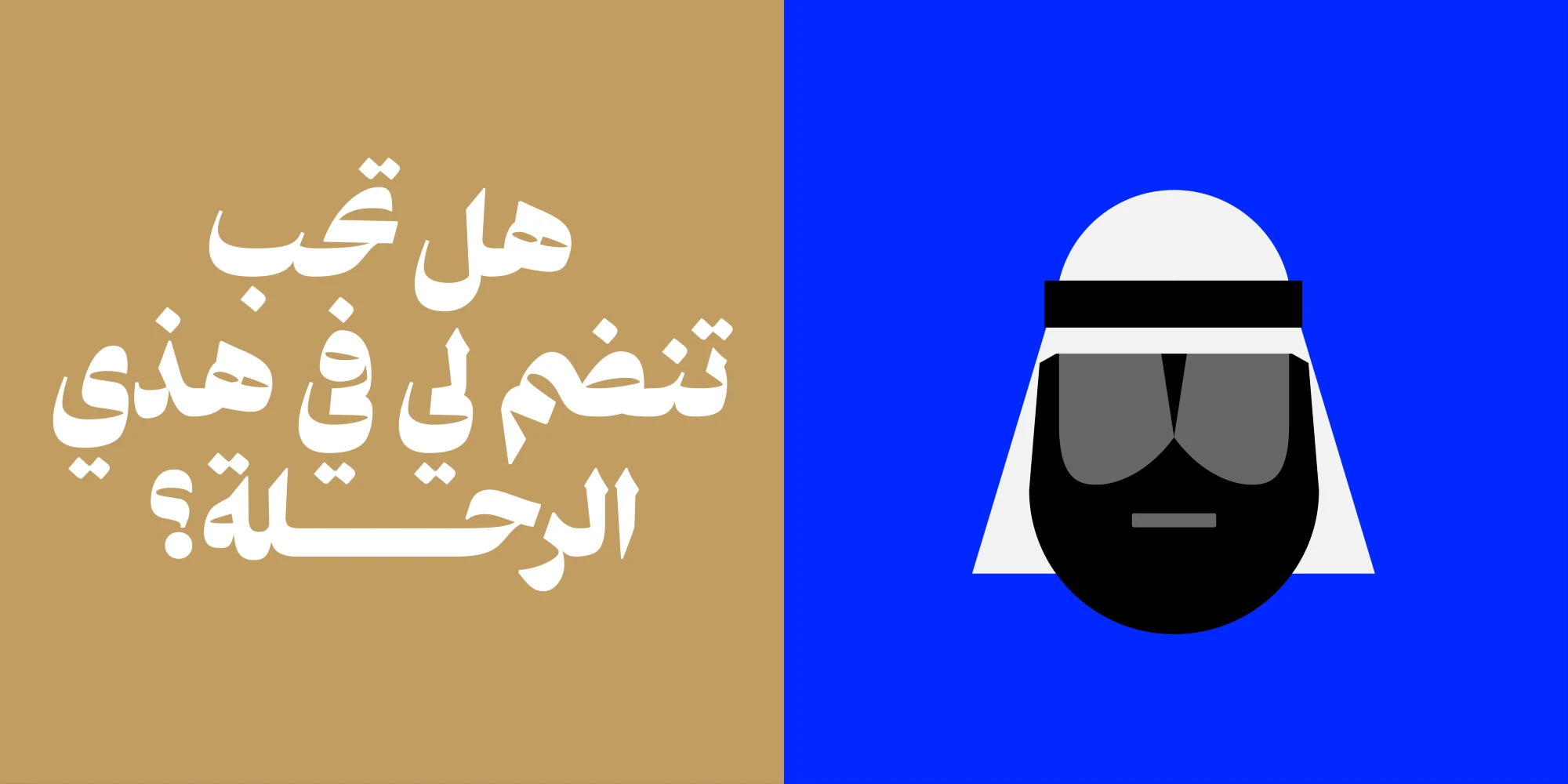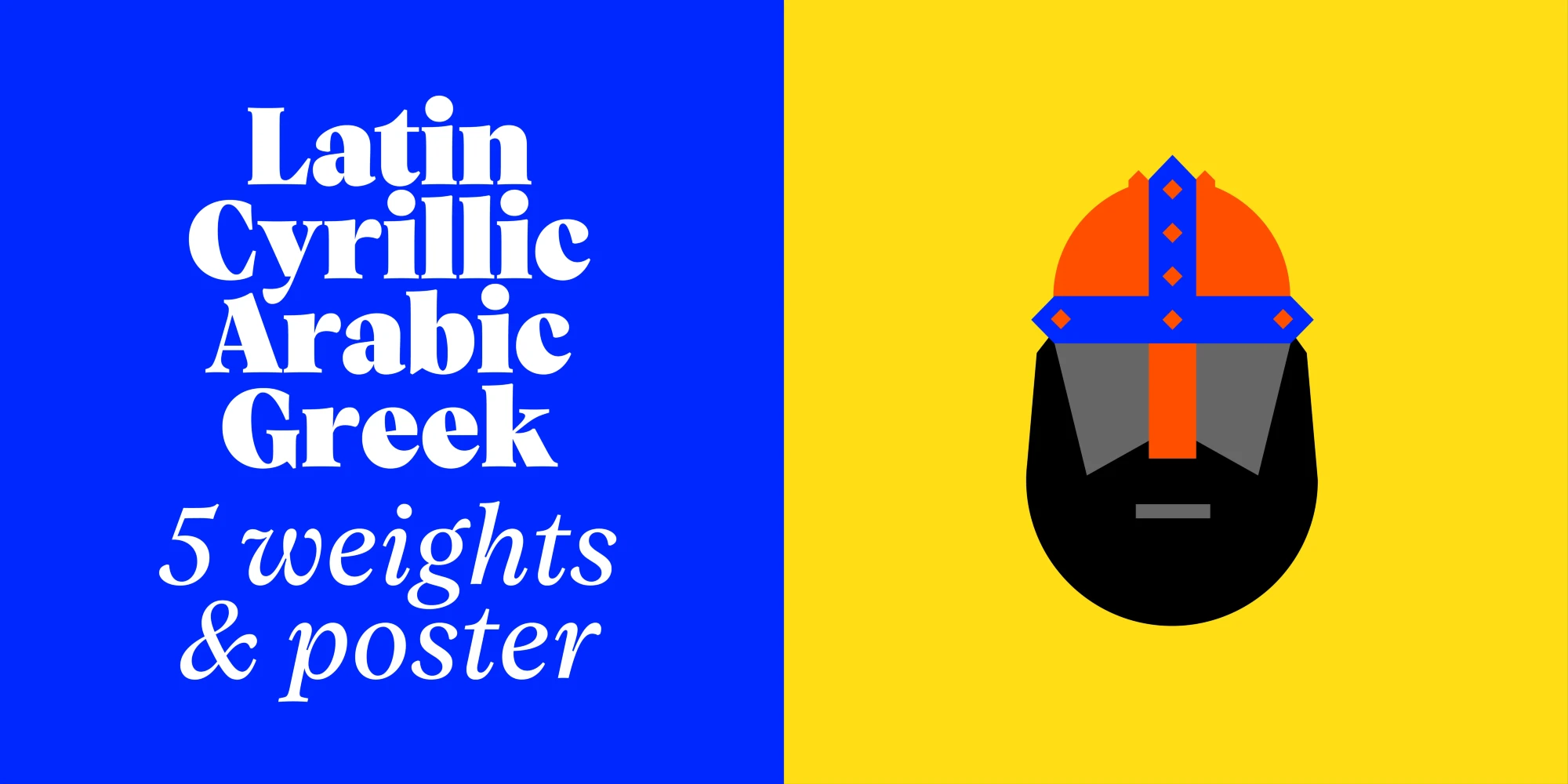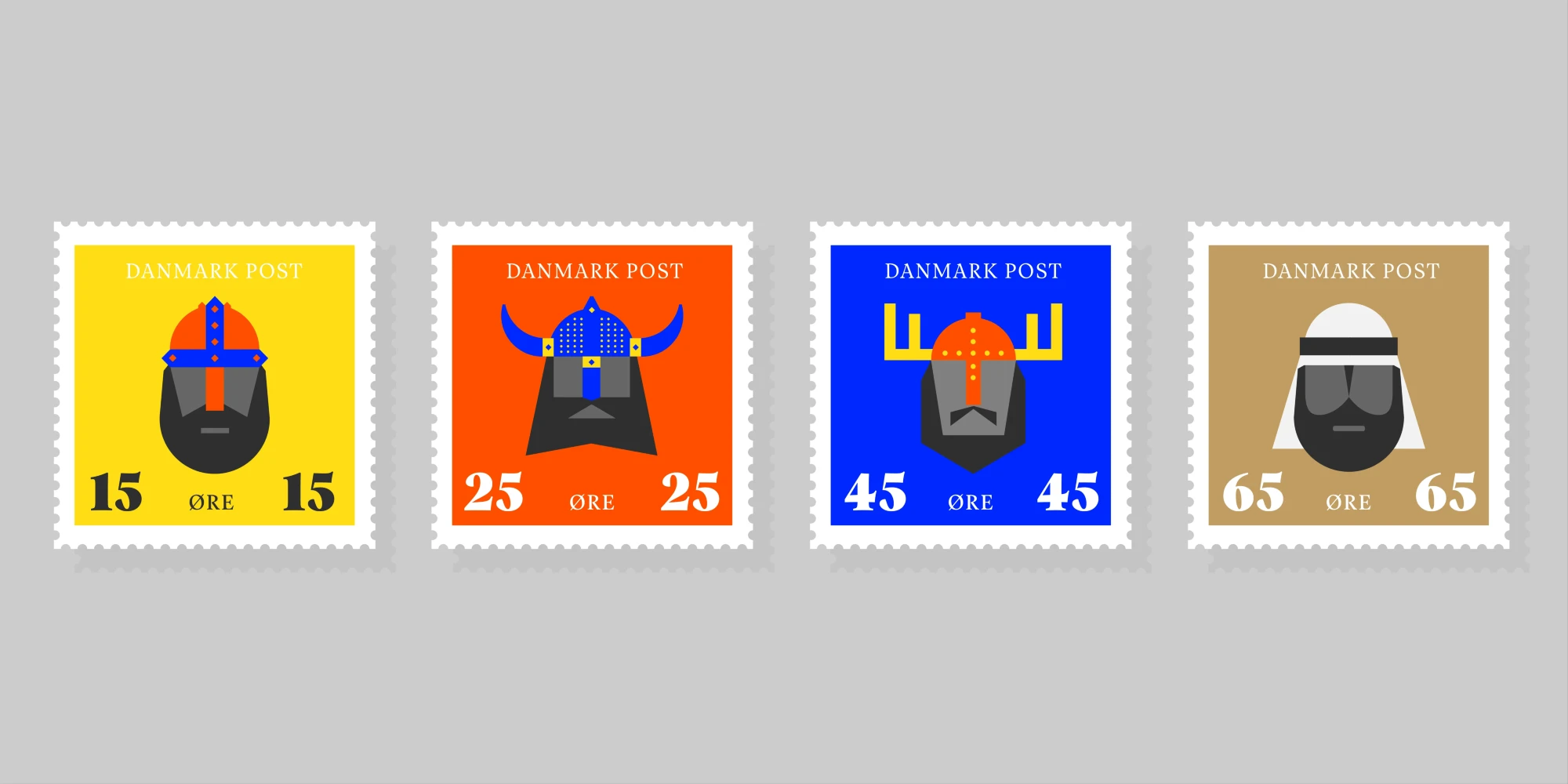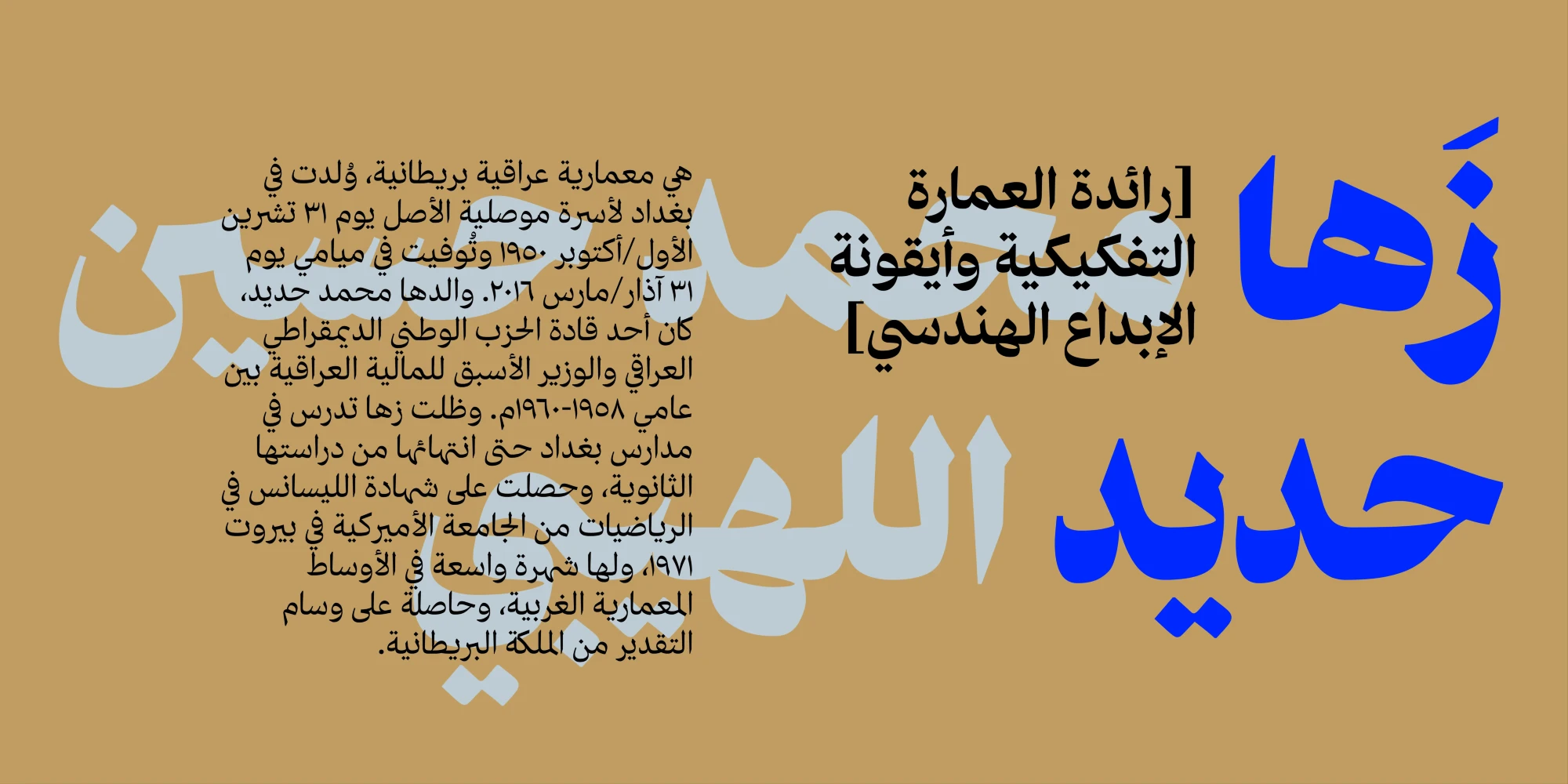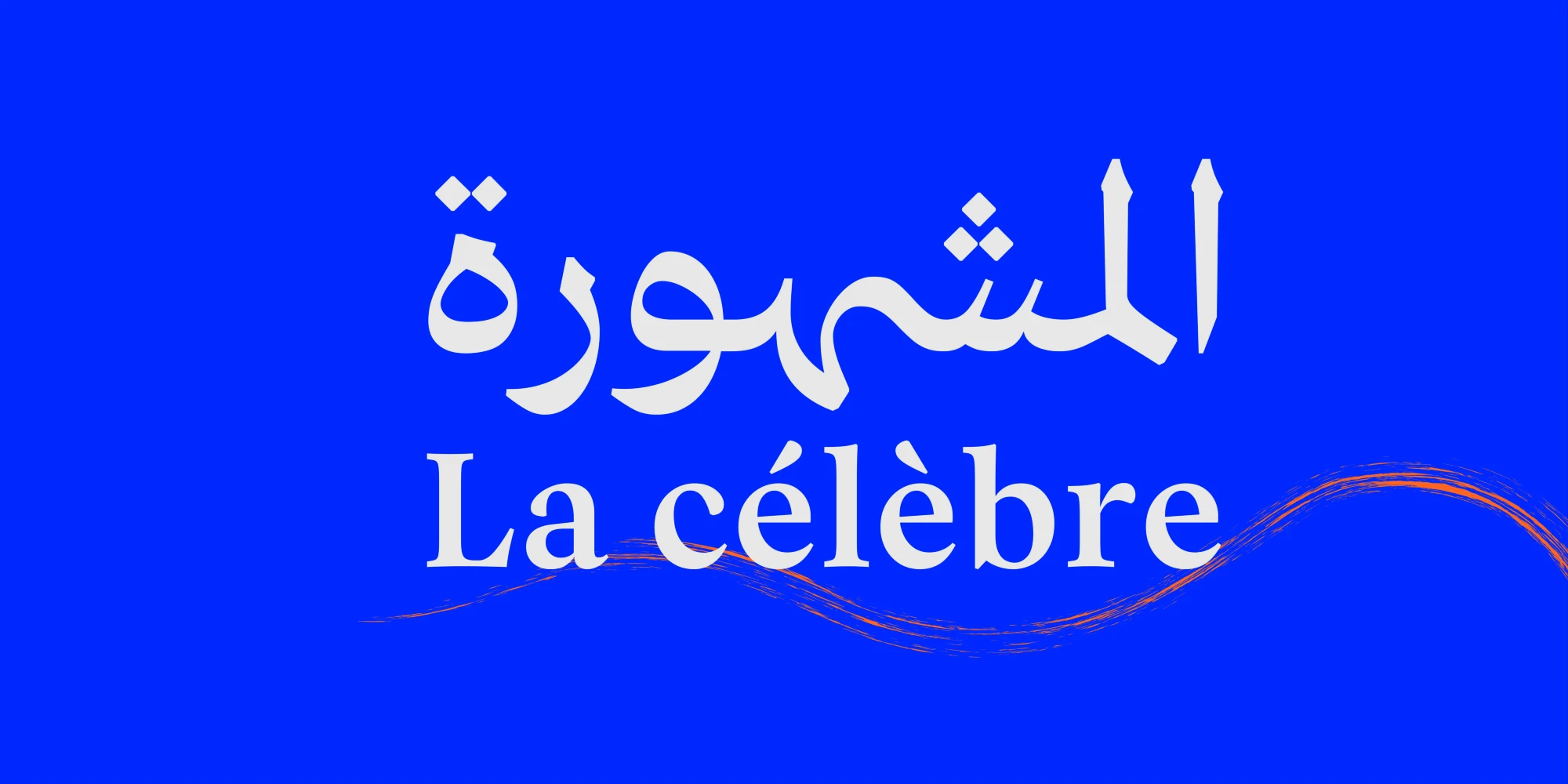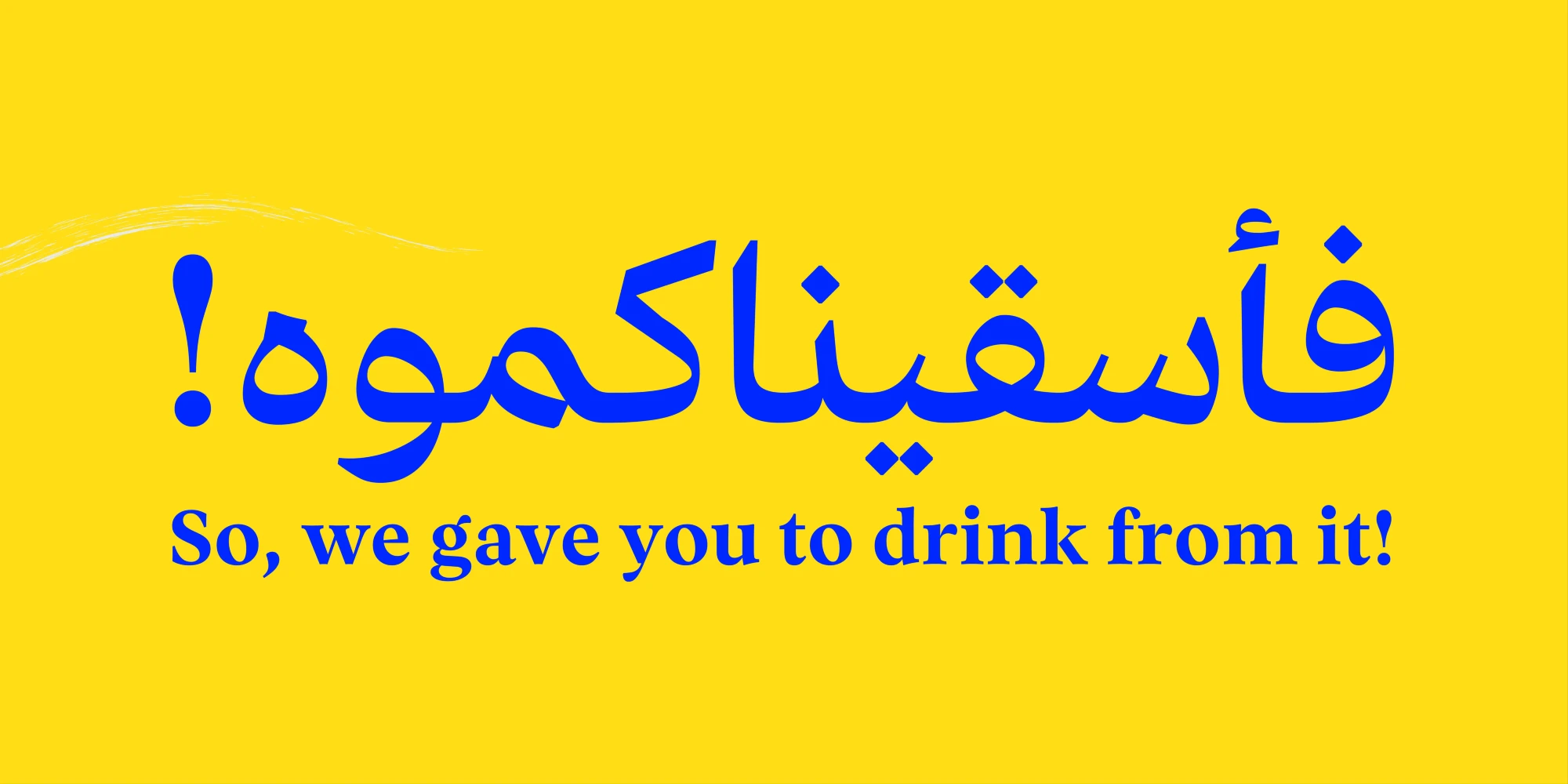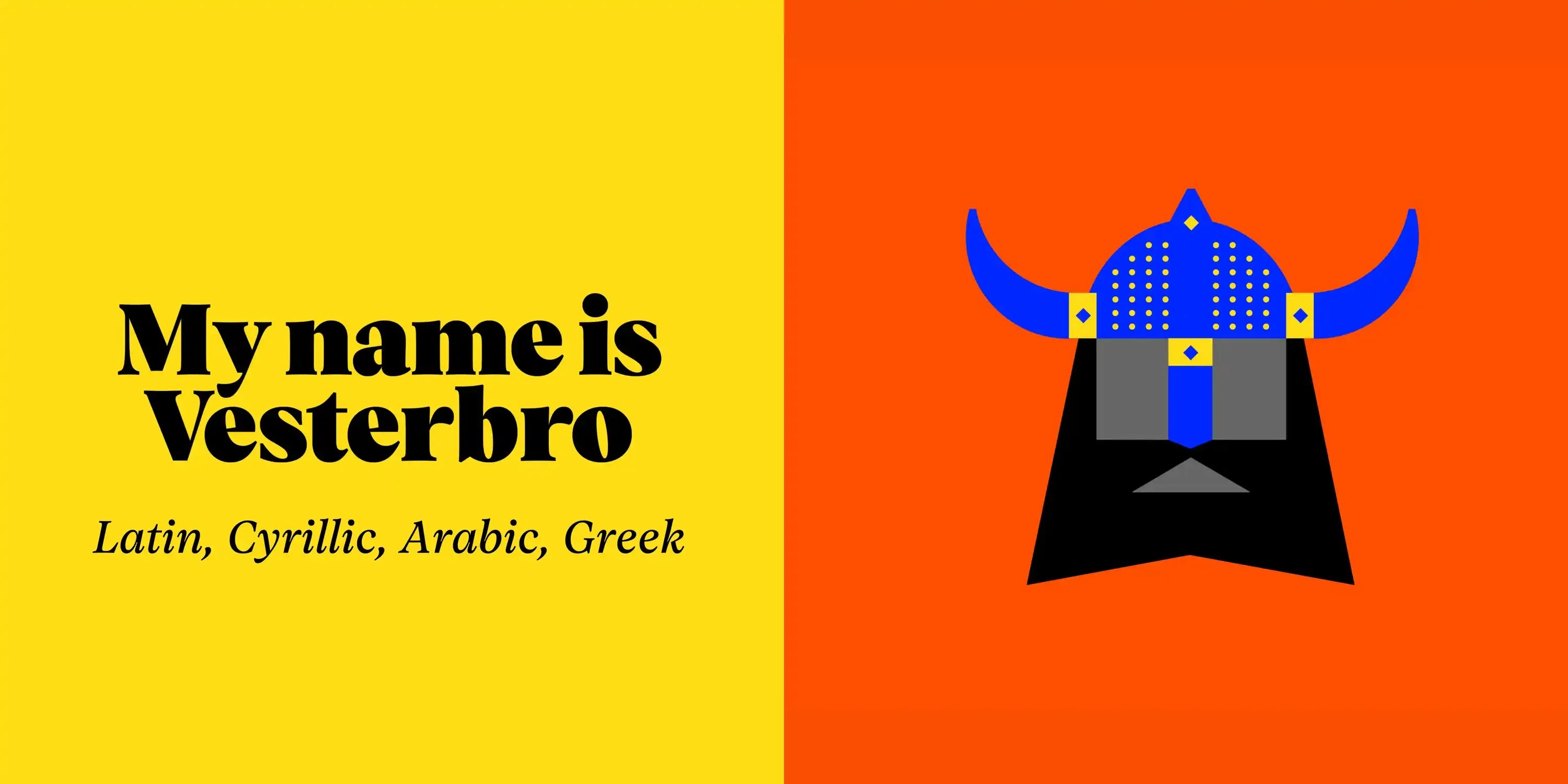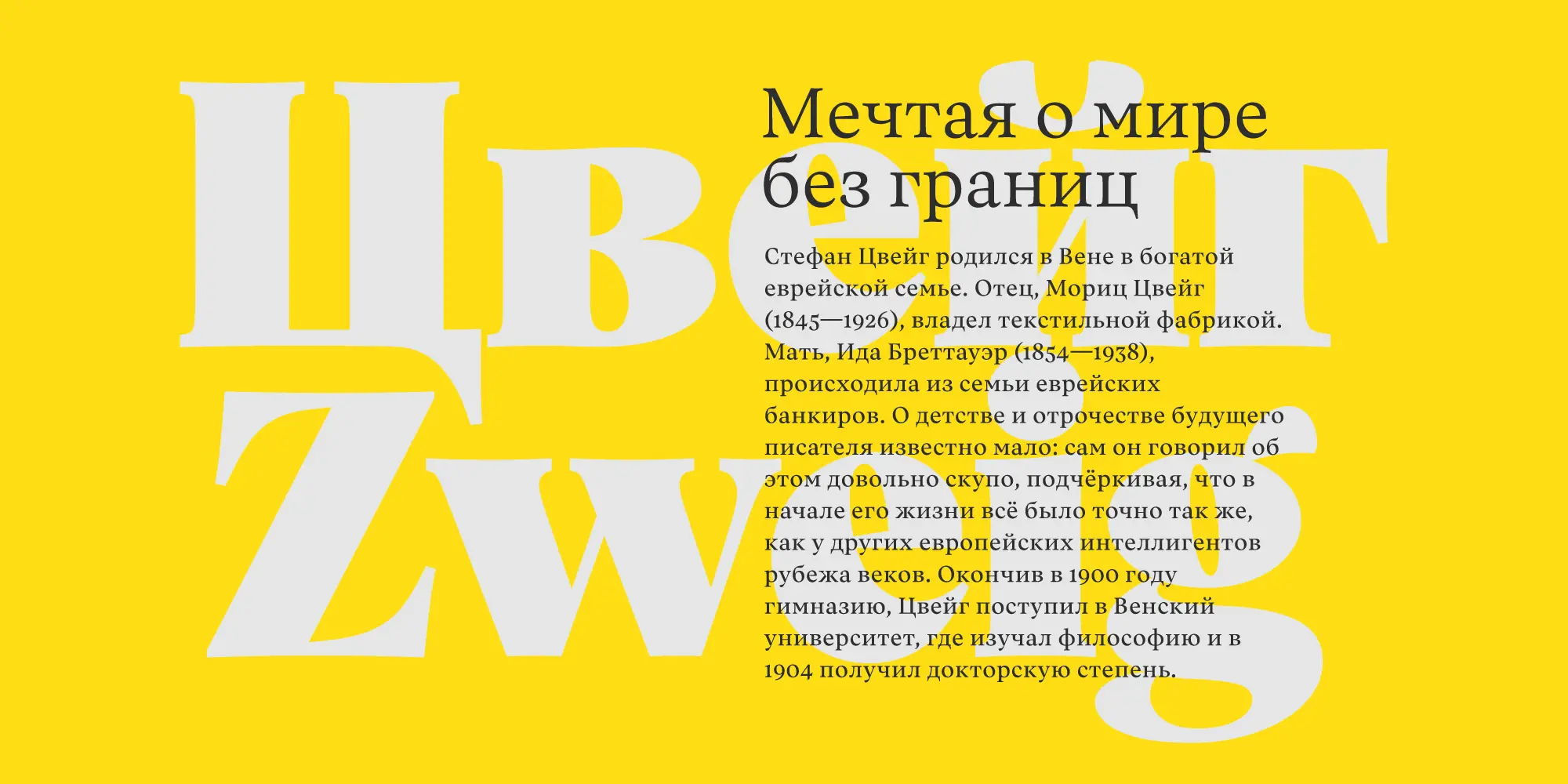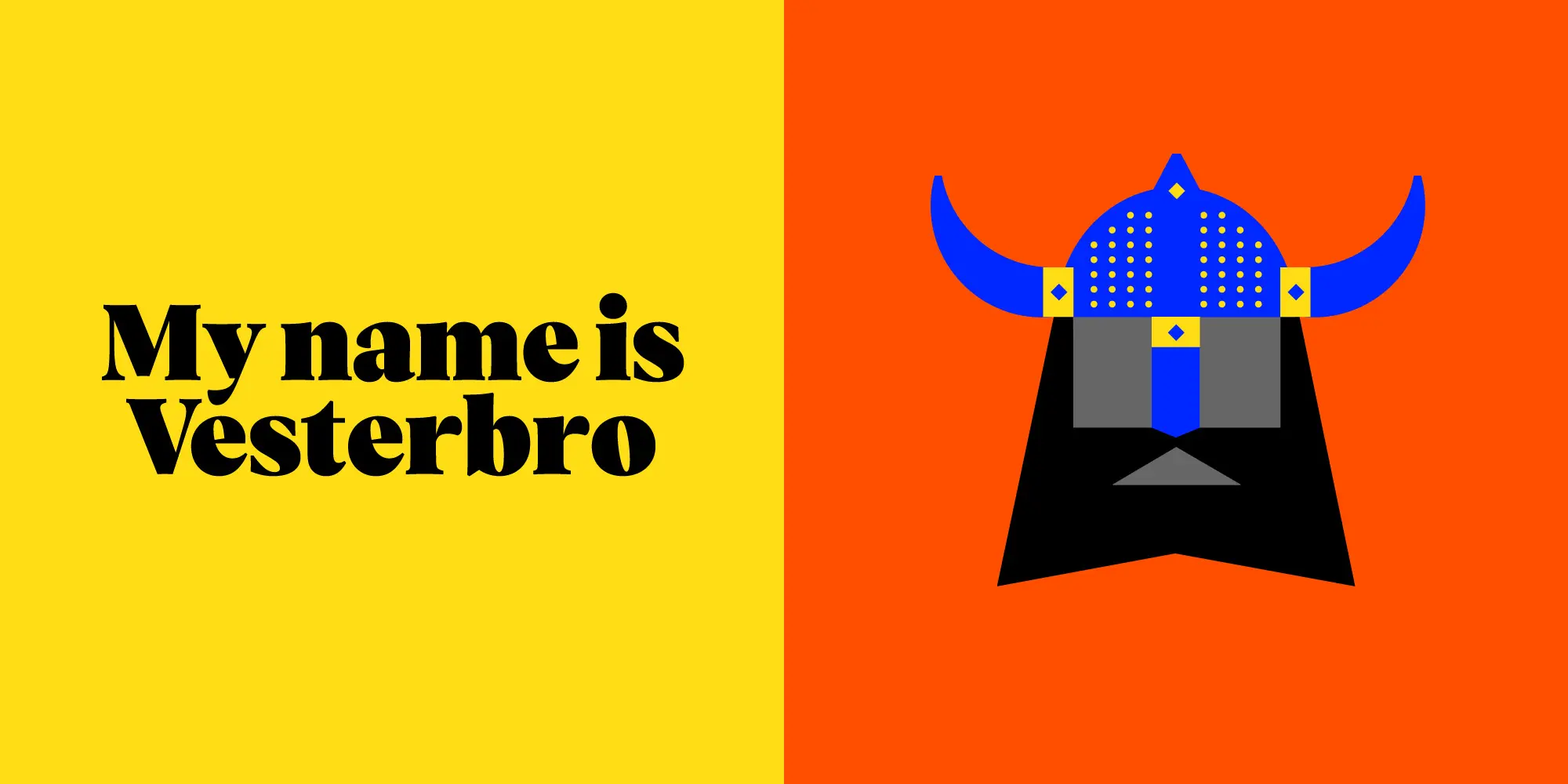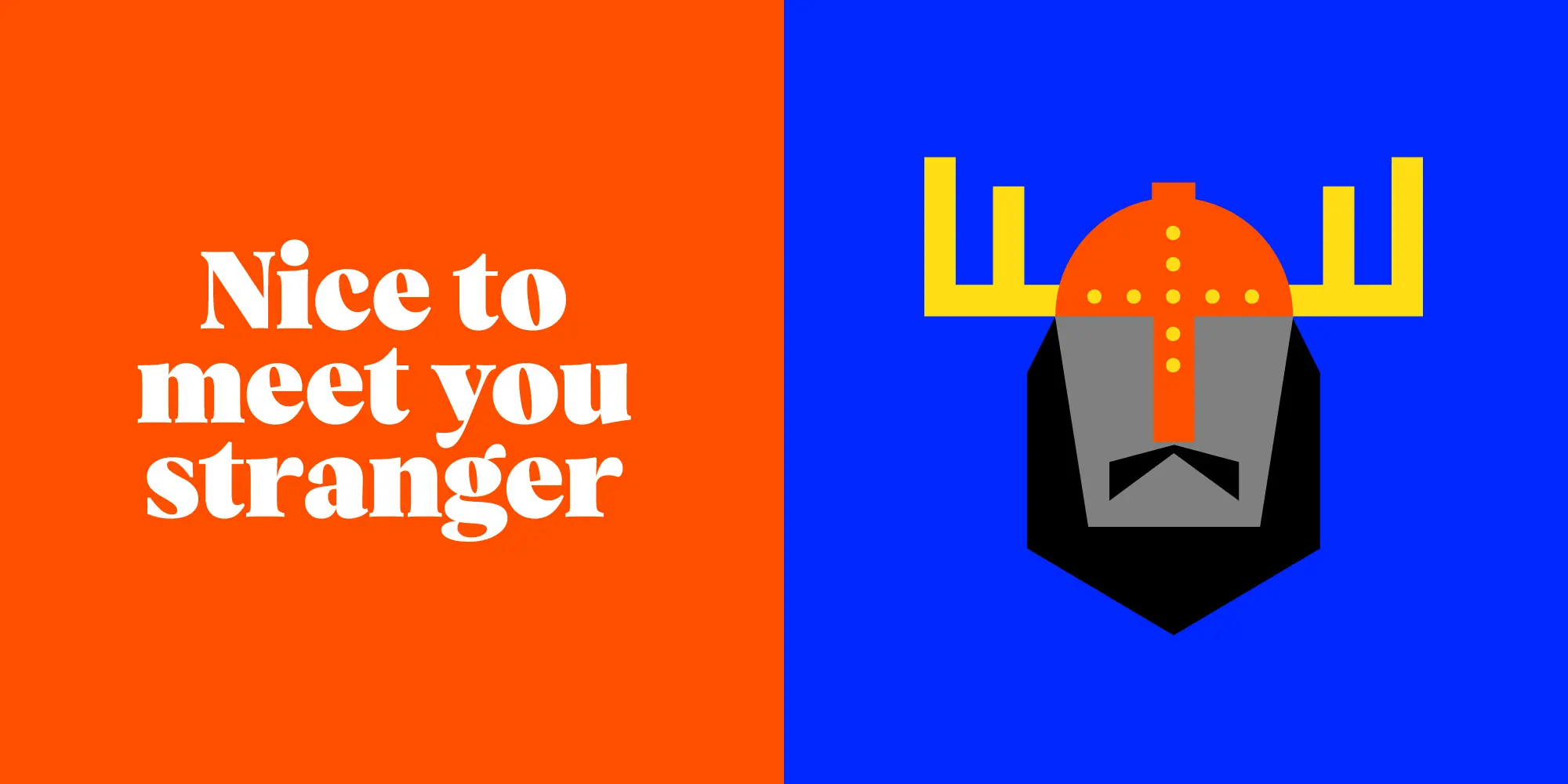
Vesterbro is an expressive serif named after the Copenhagen district where the old Western Gate once stood. Blending historical influences with contemporary warmth, it spans from the high-contrast Poster weight to confident Text styles, where supple curves and short serifs add charm and readability. Supporting Latin, Greek, Cyrillic, and Arabic, Vesterbro is offered as both static and variable fonts, delivering a sophisticated yet inviting tone for branding, editorial, and digital storytelling.
Features
OpenType Features
- Common Ligatures
- Discretionary Ligatures
- Fractions
- Lining Numerals
- Old Style Numerals
- Ordinal Numerals
- Proportional Numerals
- Stylistic Sets
- Subscript
- Superscript
- Tabular Numerals